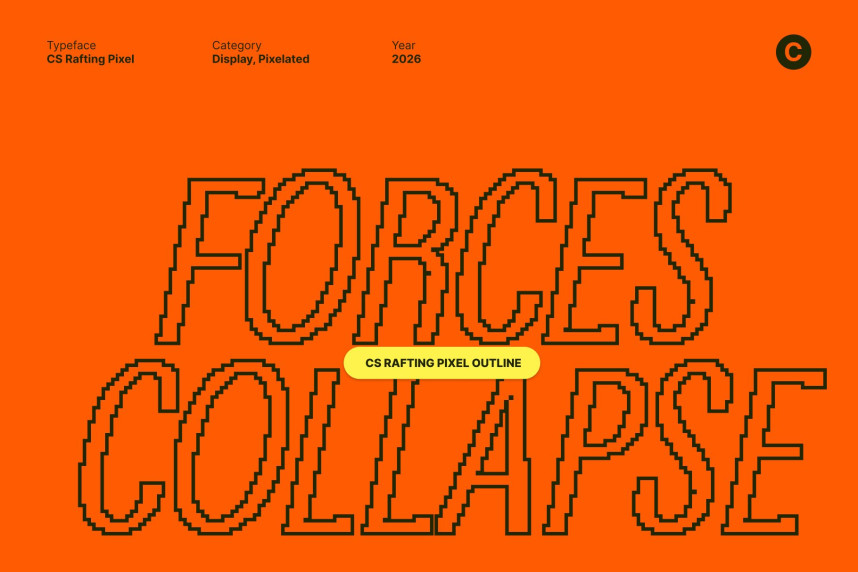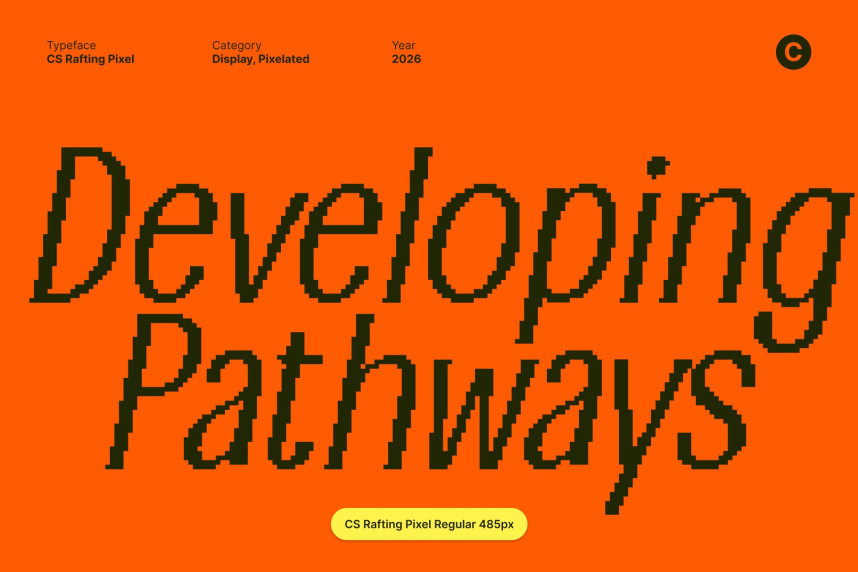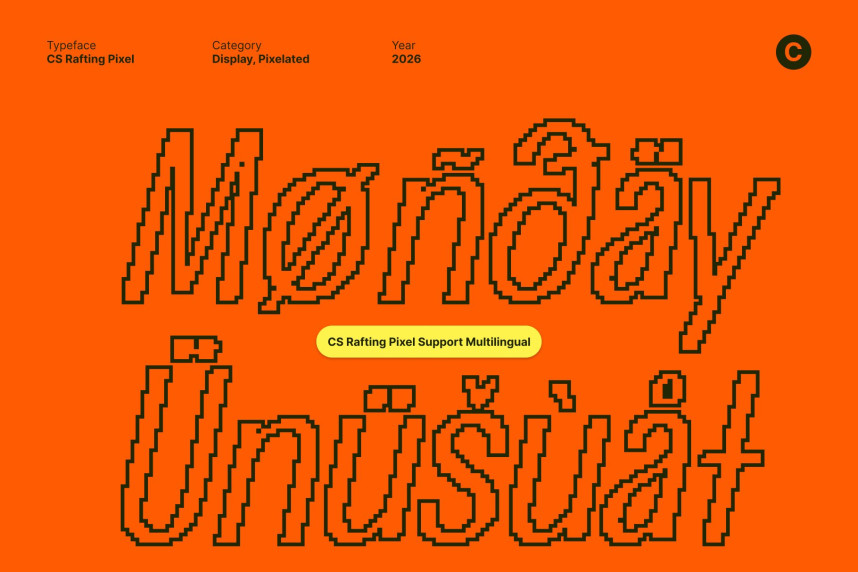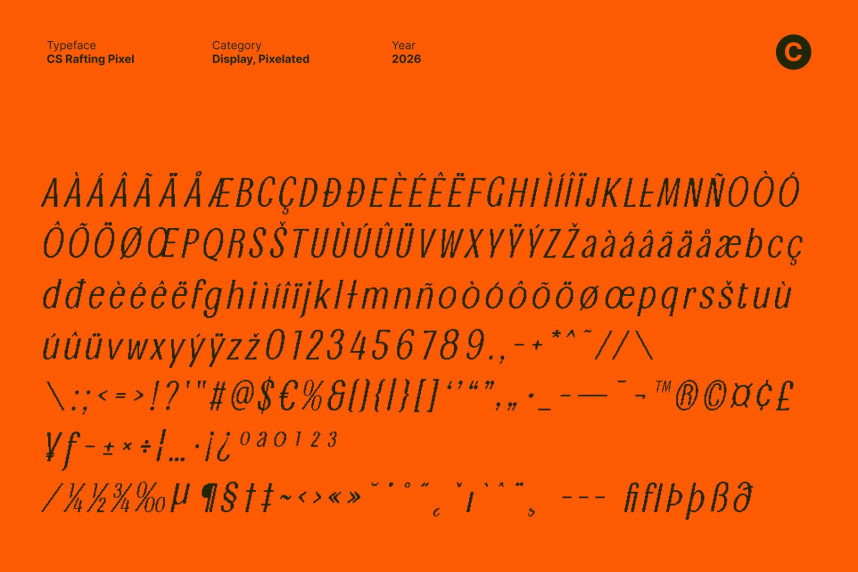
CS Rafting Pixel Font
CS Rafting Pixel Font – Modern Sans Serif with Elongated Strength Modern Sans Serif with Confident Structure. This is a modern sans serif font built to express confidence through clean construction and strong proportions. Its solid structure and balanced weight create a professional, contemporary presence that feels assertive yet refined perfect for clear and impactful visual communication.